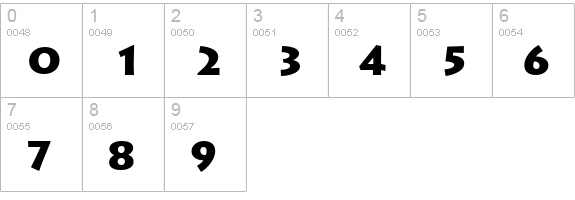
AustereBlackCapsSSK Font Details
AustereBlackCapsSSK font is a bold and striking typeface that exudes a sense of minimalism and sophistication. With its clean lines and sharp edges, this font is perfect for creating a modern and edgy look in your designs. The uppercase letters are rendered in a sleek and stylish manner, making a bold statement wherever they are used. One of the best things about AustereBlackCapsSSK font is that it is available for free download at FontsMarket.com. This means that you can easily access this unique and eye-catching font without any cost, making it a valuable addition to your font collection. Whether you are working on graphic design projects, branding materials, or any other creative endeavors, AustereBlackCapsSSK font is sure to elevate your designs and leave a lasting impression. Truly a must-have font for any designer looking to make a statement with their typography choices.